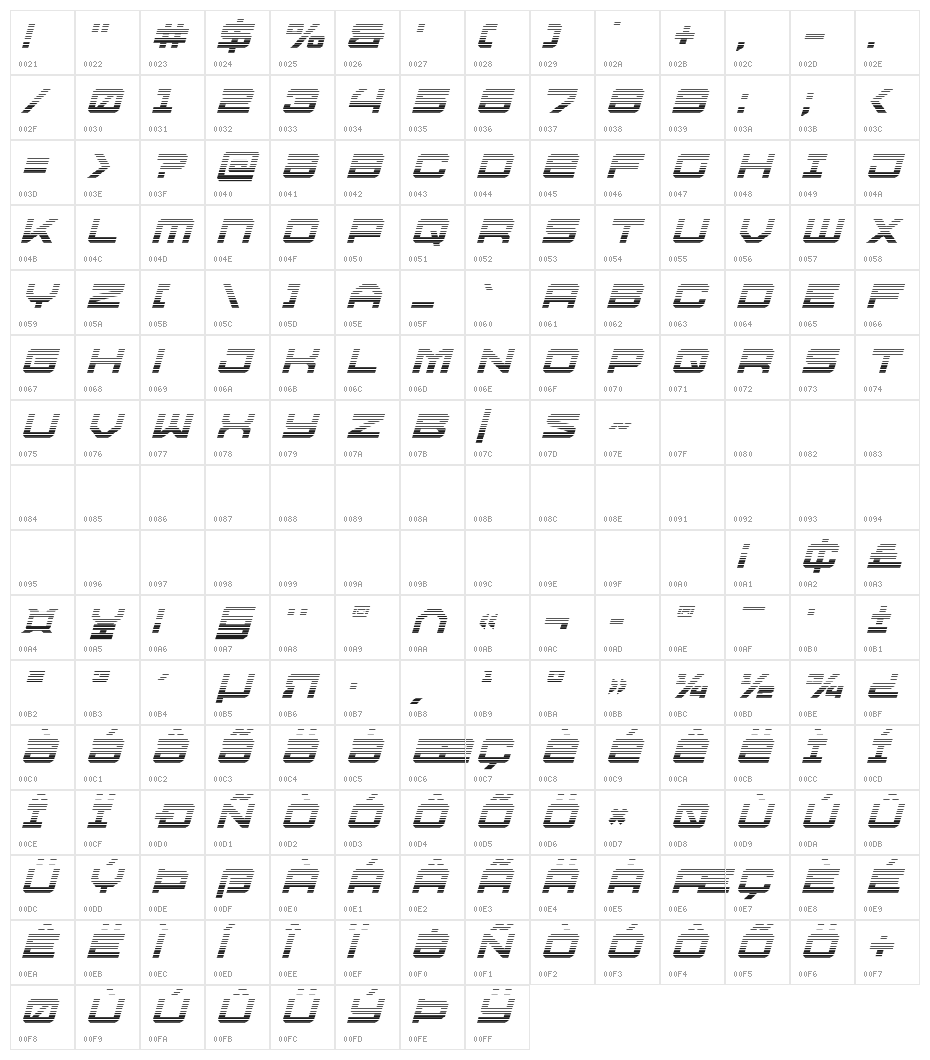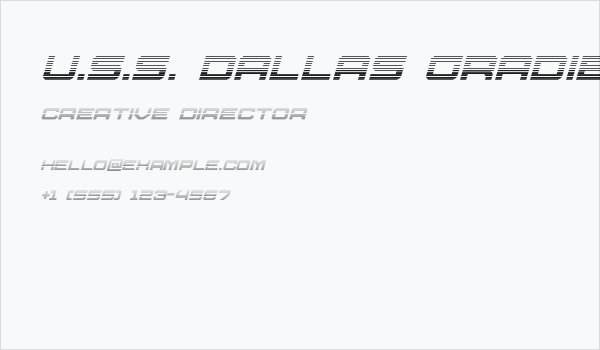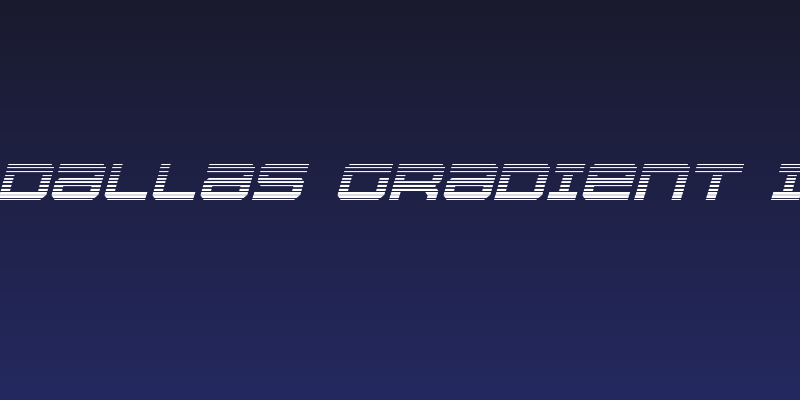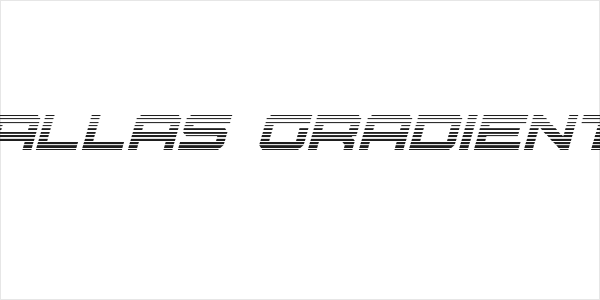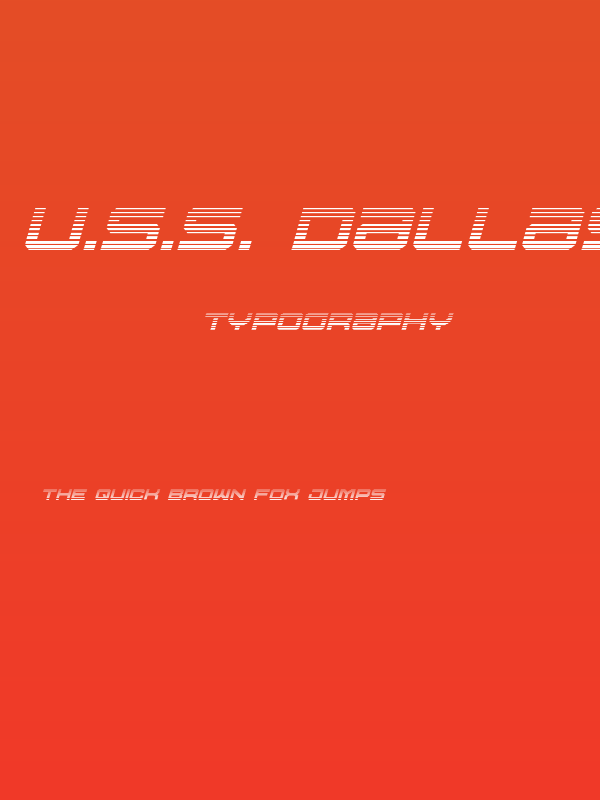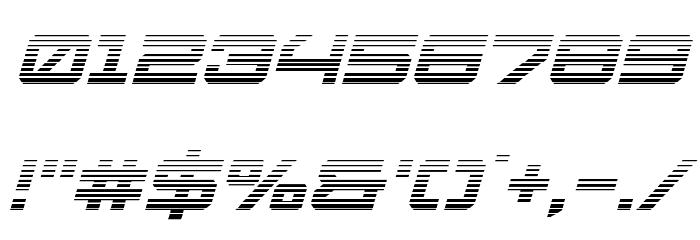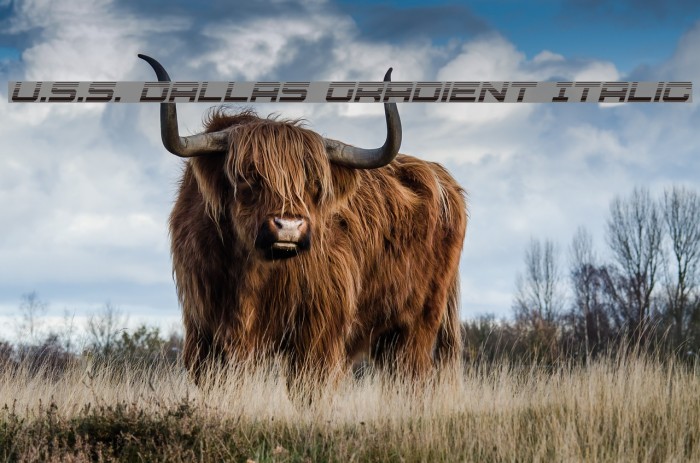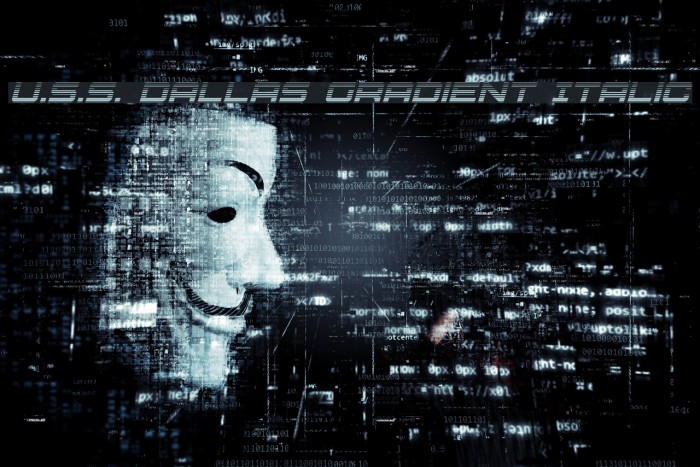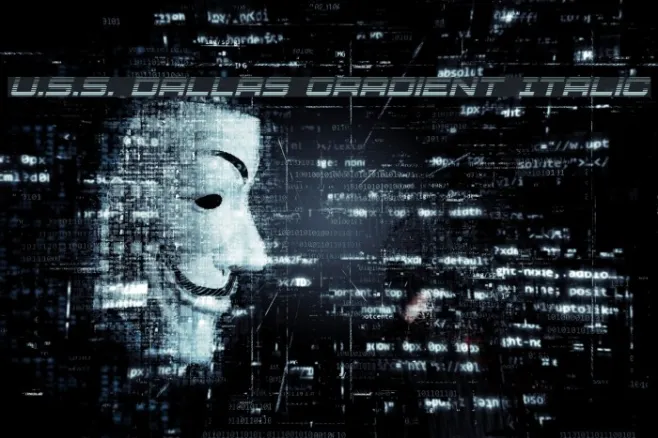
U.S.S. Dallas Gradient Italic Font
U.S.S. Dallas Gradient Italic Description
This font features a futuristic and dynamic design, characterized by a series of horizontal lines that create a gradient effect across each character. The italicized style adds a sense of motion and speed, making it ideal for projects that require a modern and energetic look. The uppercase and lowercase letters maintain a consistent structure, while the numbers and special characters are designed to match the overall aesthetic. The font's unique appearance is both eye-catching and versatile, suitable for a variety of creative applications.
| Proposed Projects | Ideal for sci-fi themed designs, tech branding, video game titles, and dynamic posters. |